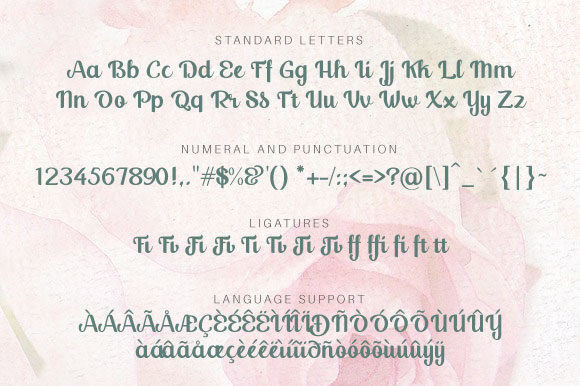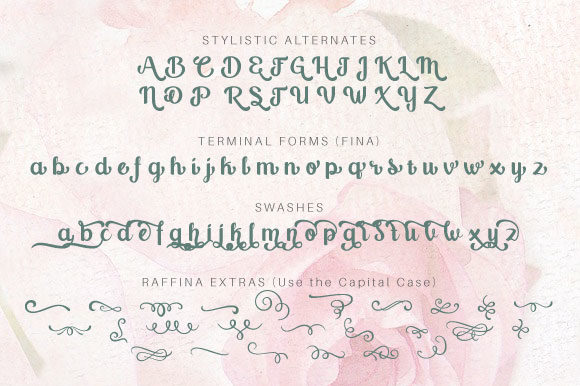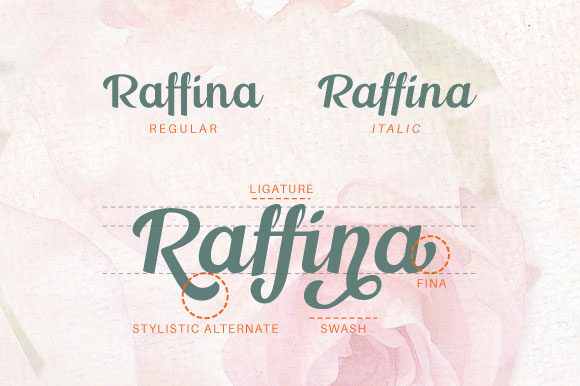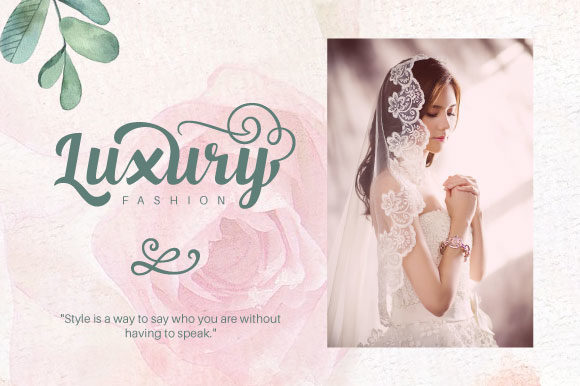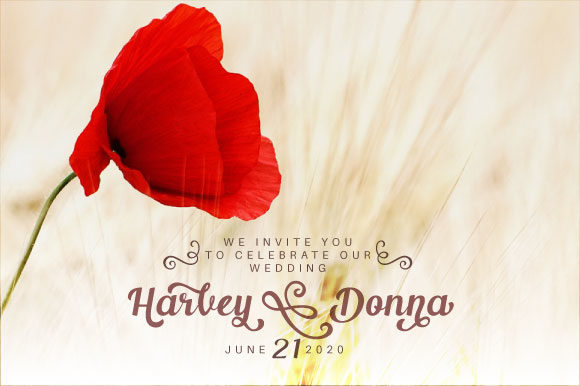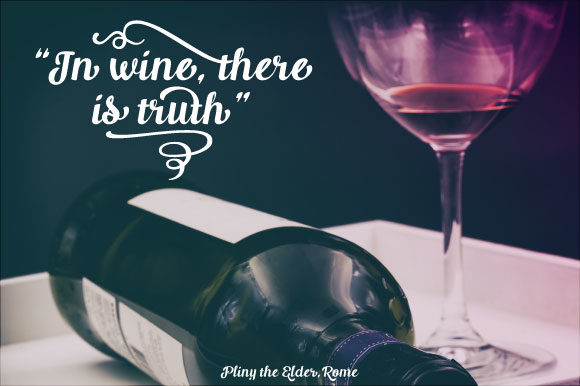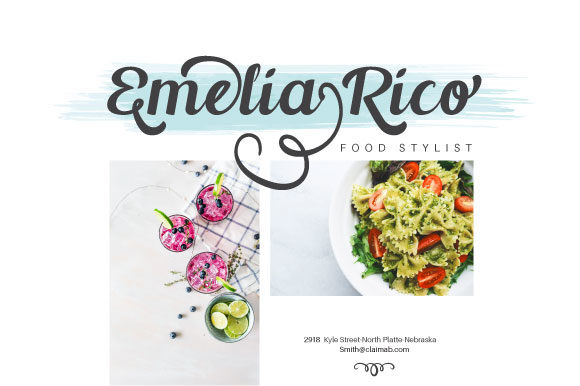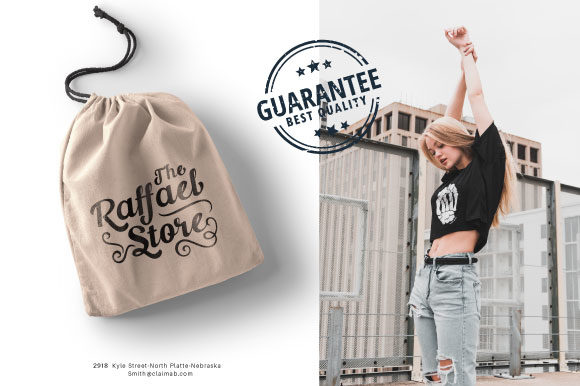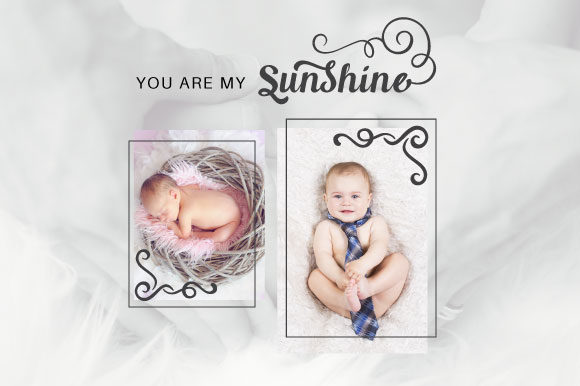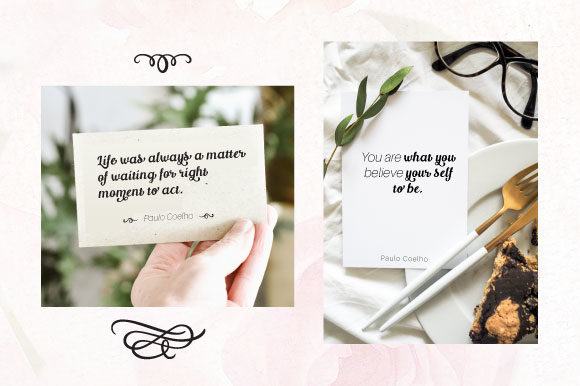
Raffina Font
About Raffina Font
Raffina is a bold and beautiful script font with a one-of-a-kind feel. It will add a joyful spark to any creative project.